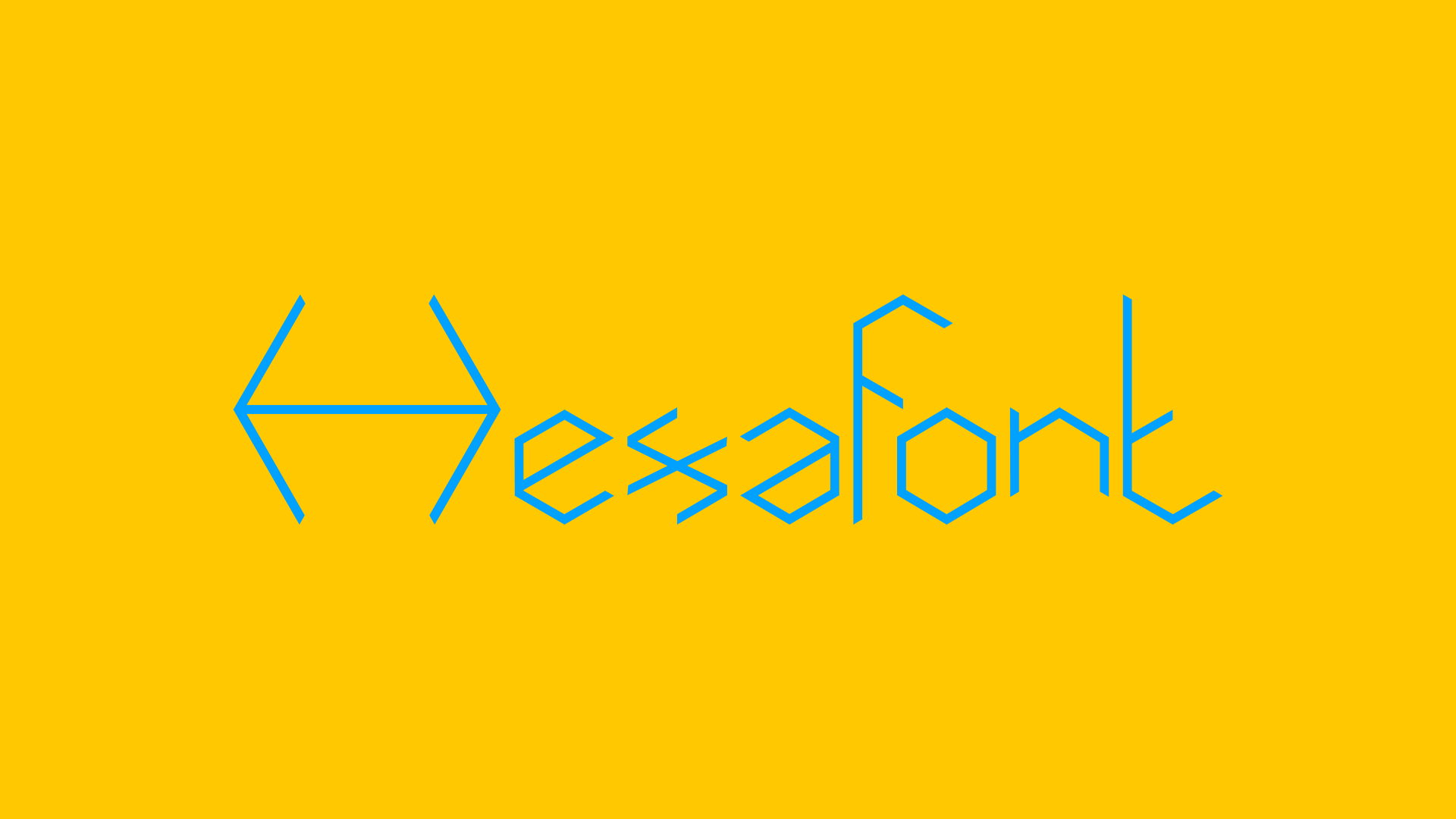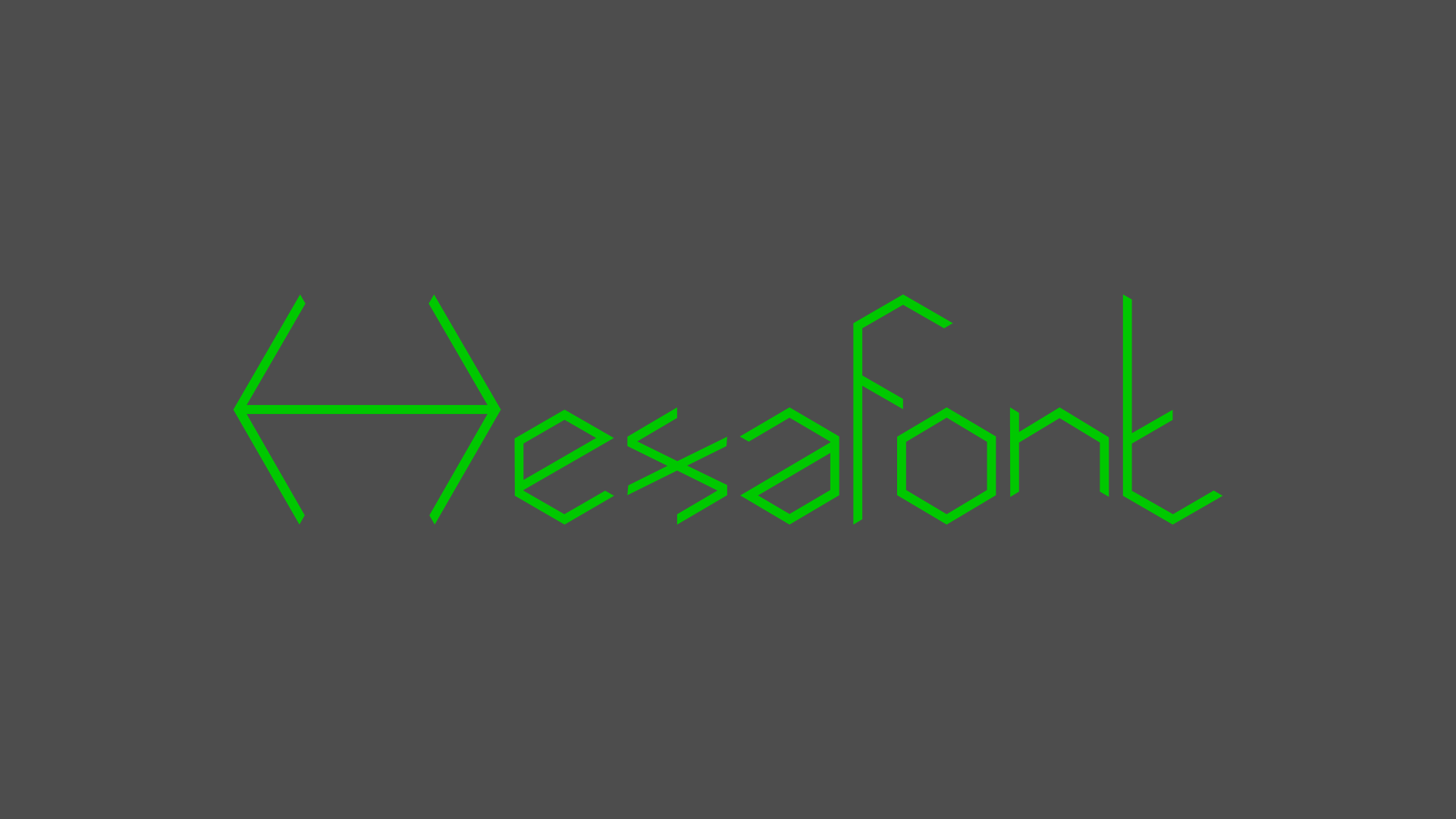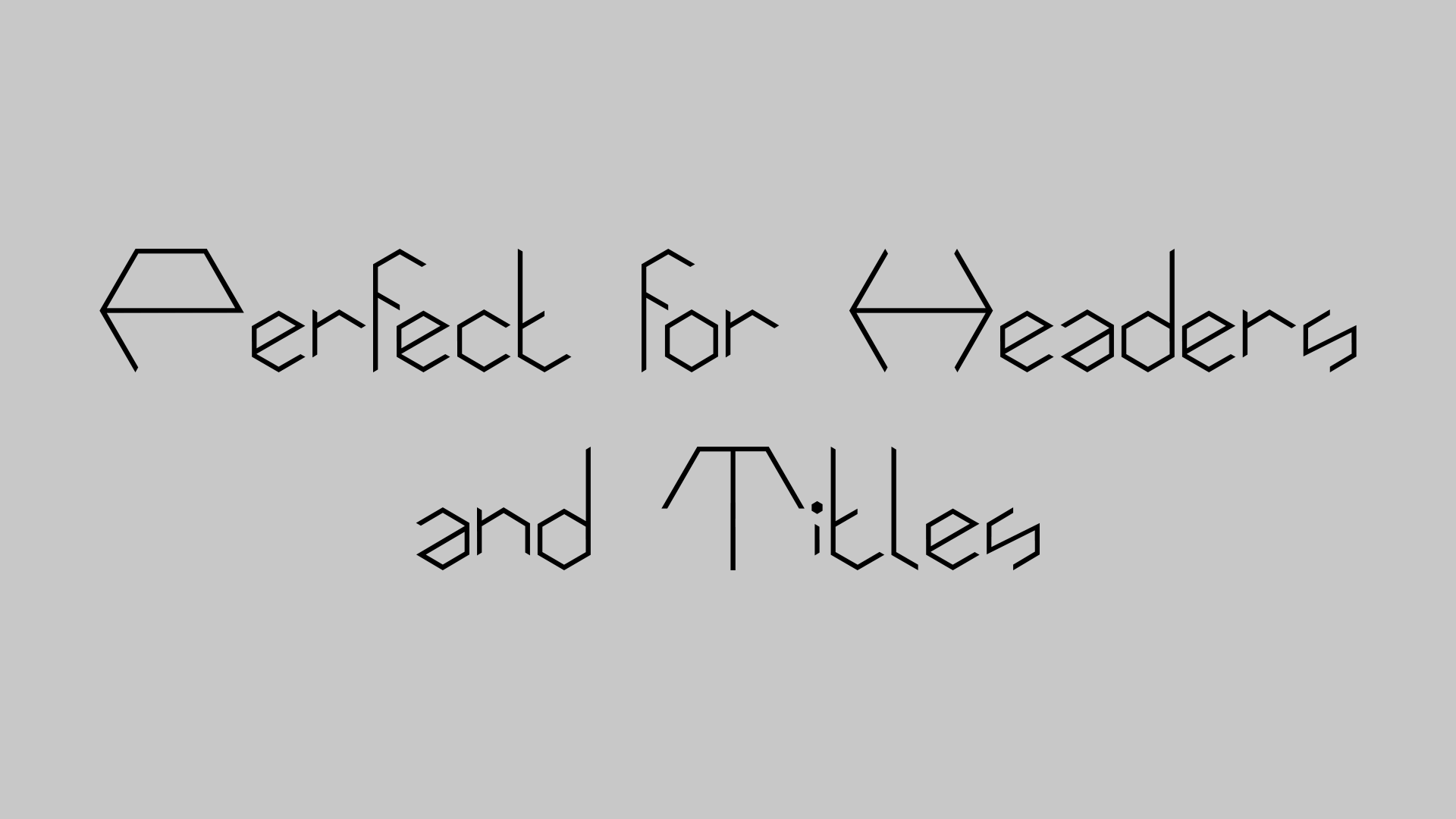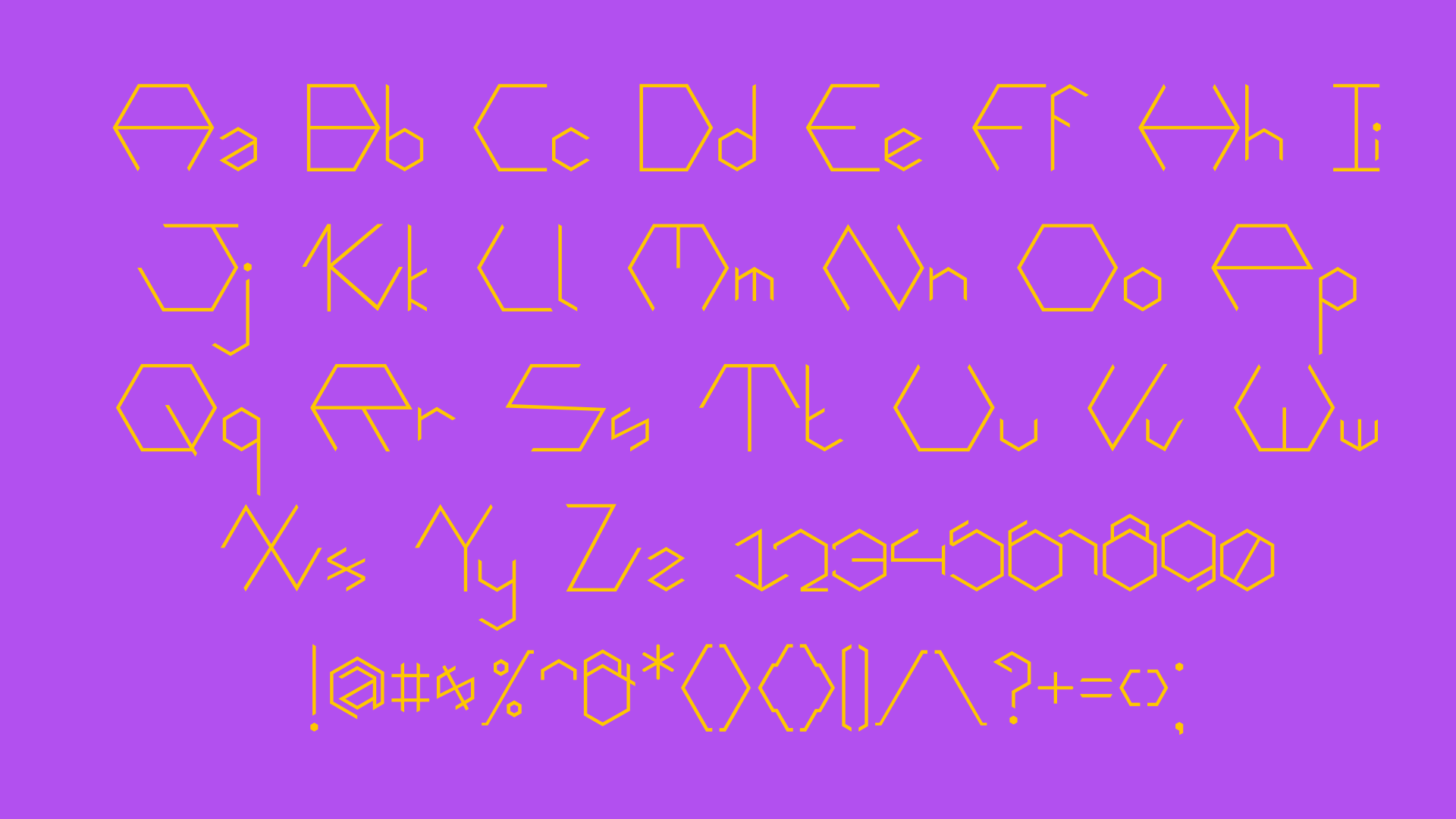
Introduction to Hexa Font
Hexafont, a geometric typeface.
Key Features of Hexa Font
Why Choose Hexa Font?
Hexa Font offers exceptional quality and versatility, making it a valuable addition to your design toolkit. Whether you’re creating for personal projects or commercial use, Hexa Font delivers professional results.